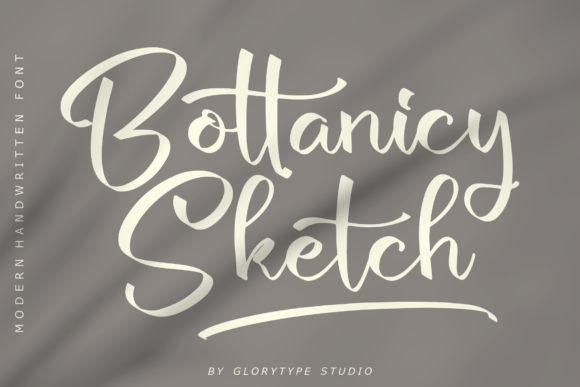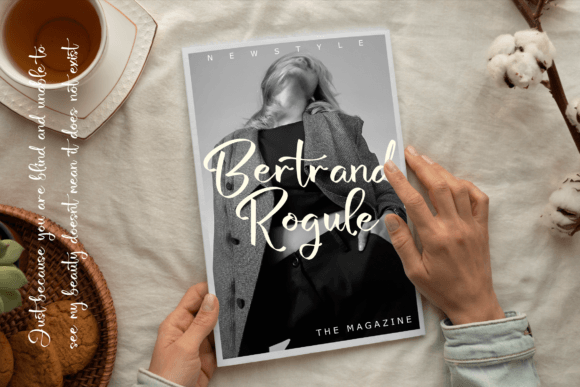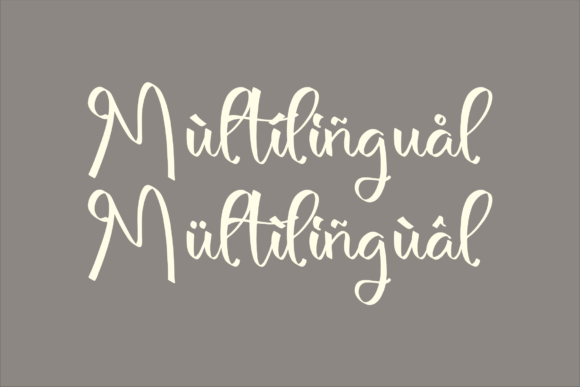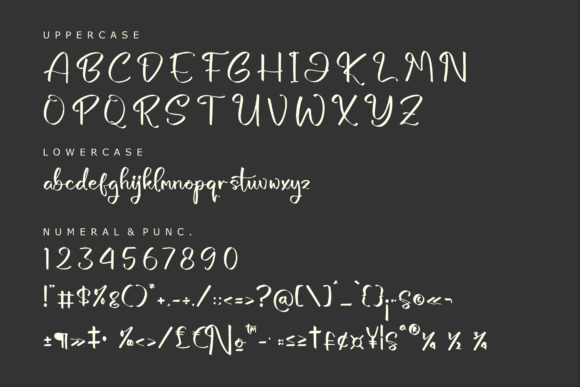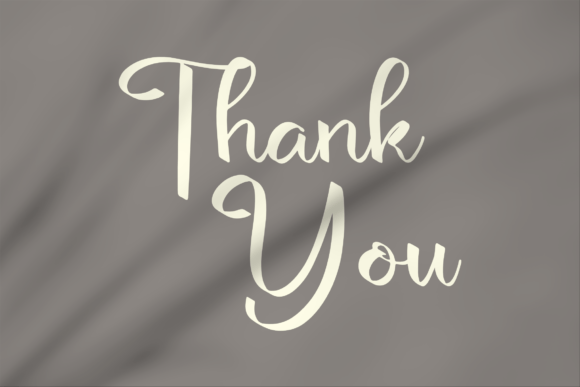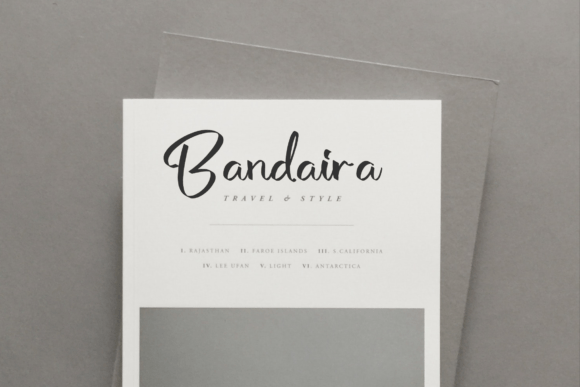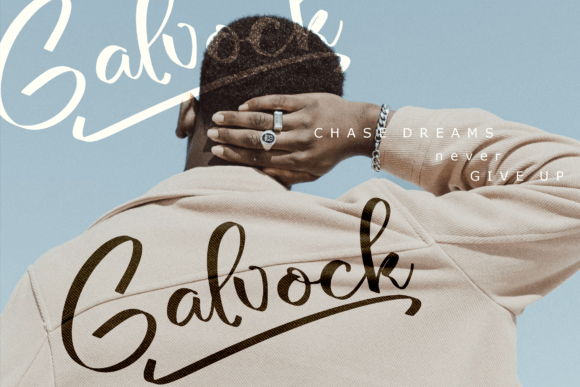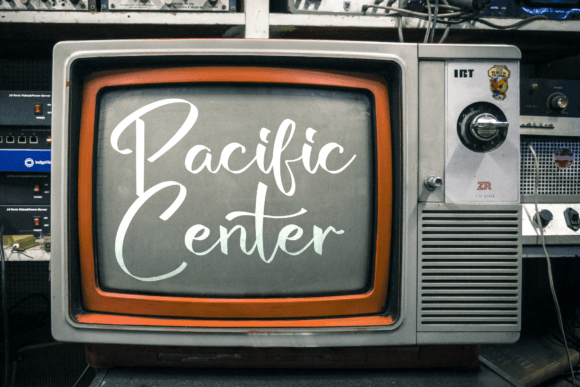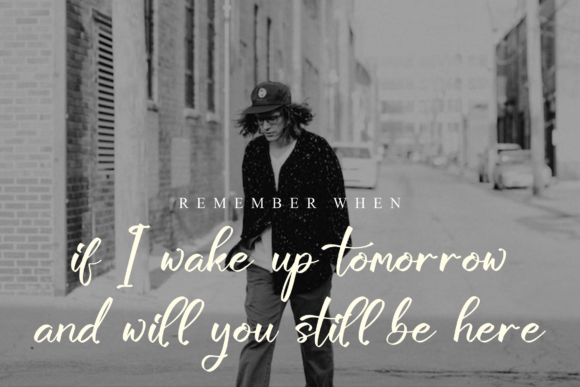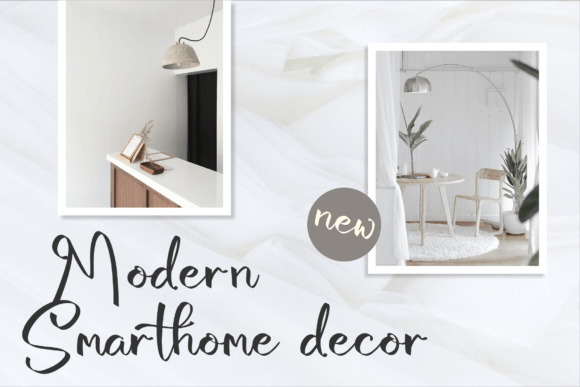
Bottanicy Sketch Font
Elevate Your Designs with Bottanicy Sketch Handwritten Font
The Bottanicy Sketch Handwritten Font is a beautifully flowing script typeface with an elegant and timeless character. Designed to bring sophistication and personality to your most cherished design projects, this font is ideal for both digital and print creations that demand a graceful handwritten look.
From branding to stationery, Bottanicy Sketch offers a unique charm that feels handcrafted yet refined.
Perfect for Invitations, Branding, and Elegant Layouts
Bottanicy Sketch is a favorite among designers looking to add warmth and elegance to their work. It’s perfect for wedding invitations, thank-you cards, brand logos, social media graphics, and product packaging. Whether you’re creating for personal occasions or professional marketing, this font adds a distinctive touch that elevates your message.
Its timeless nature makes it especially suitable for event branding, boutique products, and custom merchandise where class and creativity are key.
A Handwritten Script That Flows with Grace
What sets the Bottanicy Sketch Handwritten Font apart is its smooth, flowing lines and natural letterforms. Each character is carefully crafted to mirror real handwriting, resulting in a script that is both expressive and legible.
The gentle curves, balanced strokes, and subtle elegance of the font create a romantic, authentic feel without sacrificing clarity. This makes it ideal for use in both headlines and longer text blocks.
Reliable Across Digital and Print Projects
Bottanicy Sketch works beautifully in a wide range of mediums. It’s ideal for print materials like invitations and flyers, as well as digital platforms such as websites, blogs, and social media posts. Whether you’re working in Adobe Illustrator, Canva, or Photoshop, you’ll find this font easy to use and incredibly versatile.
For a professional look, try pairing Bottanicy Sketch with a minimalist serif or sans-serif typeface. This contrast highlights the handwritten quality and adds a modern touch to your layouts.
Why Creatives Love Bottanicy Sketch Handwritten Font
Here’s what makes Bottanicy Sketch a standout choice:
• Flowing handwritten style with elegant detailing
• Perfect for invitations, logos, packaging, and branding
• Readable, clean, and expressive at all sizes
Add a Personal, Elegant Touch to Every Design
In conclusion, the Bottanicy Sketch Handwritten Font is a timeless script that brings elegance, emotion, and authenticity to your work. Whether you’re designing for a romantic occasion or launching a stylish brand, this font helps your message shine with sophistication.
If you want a script font that’s graceful, creative, and truly unforgettable, Bottanicy Sketch is the ideal choice for your next project.